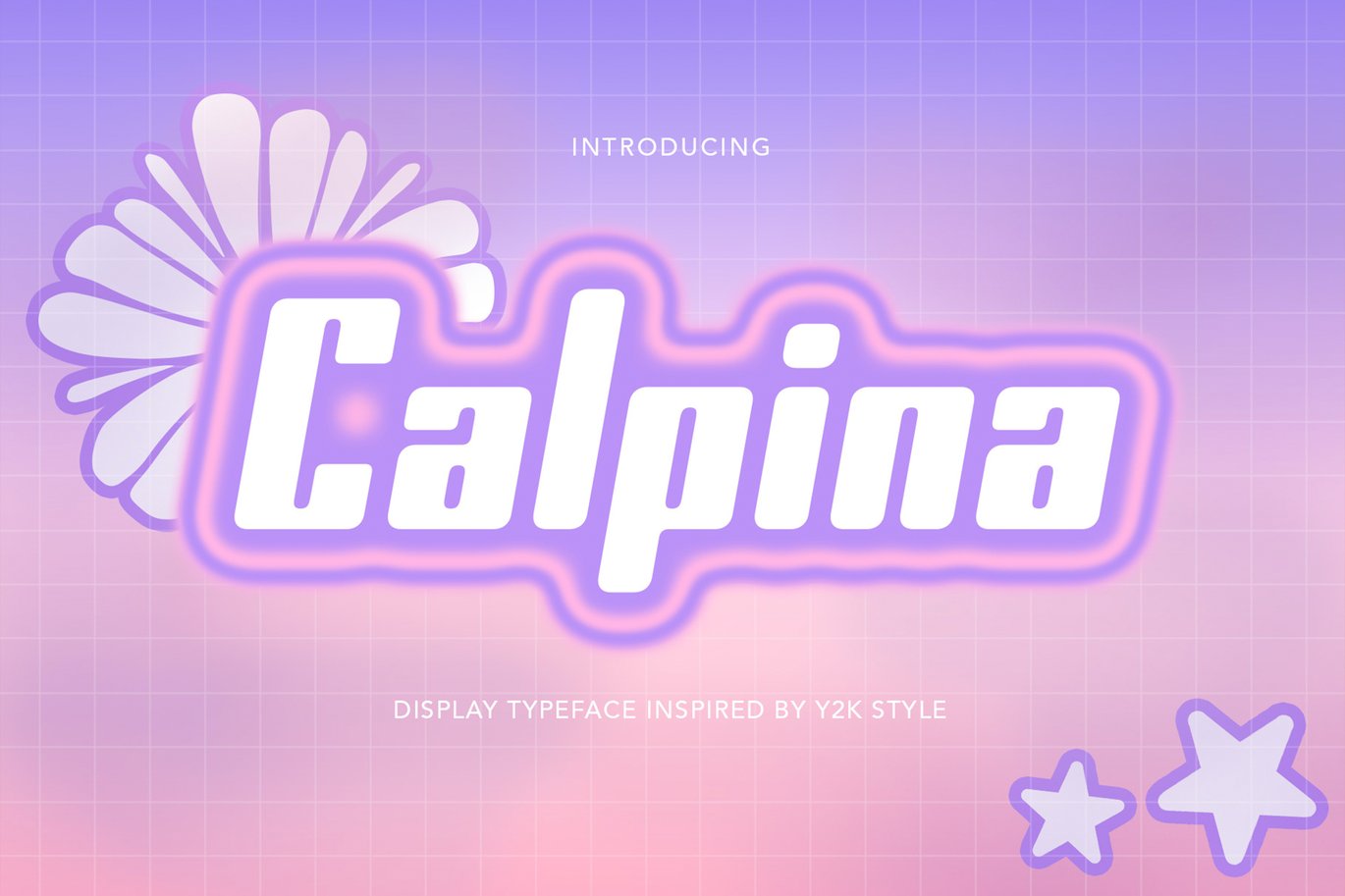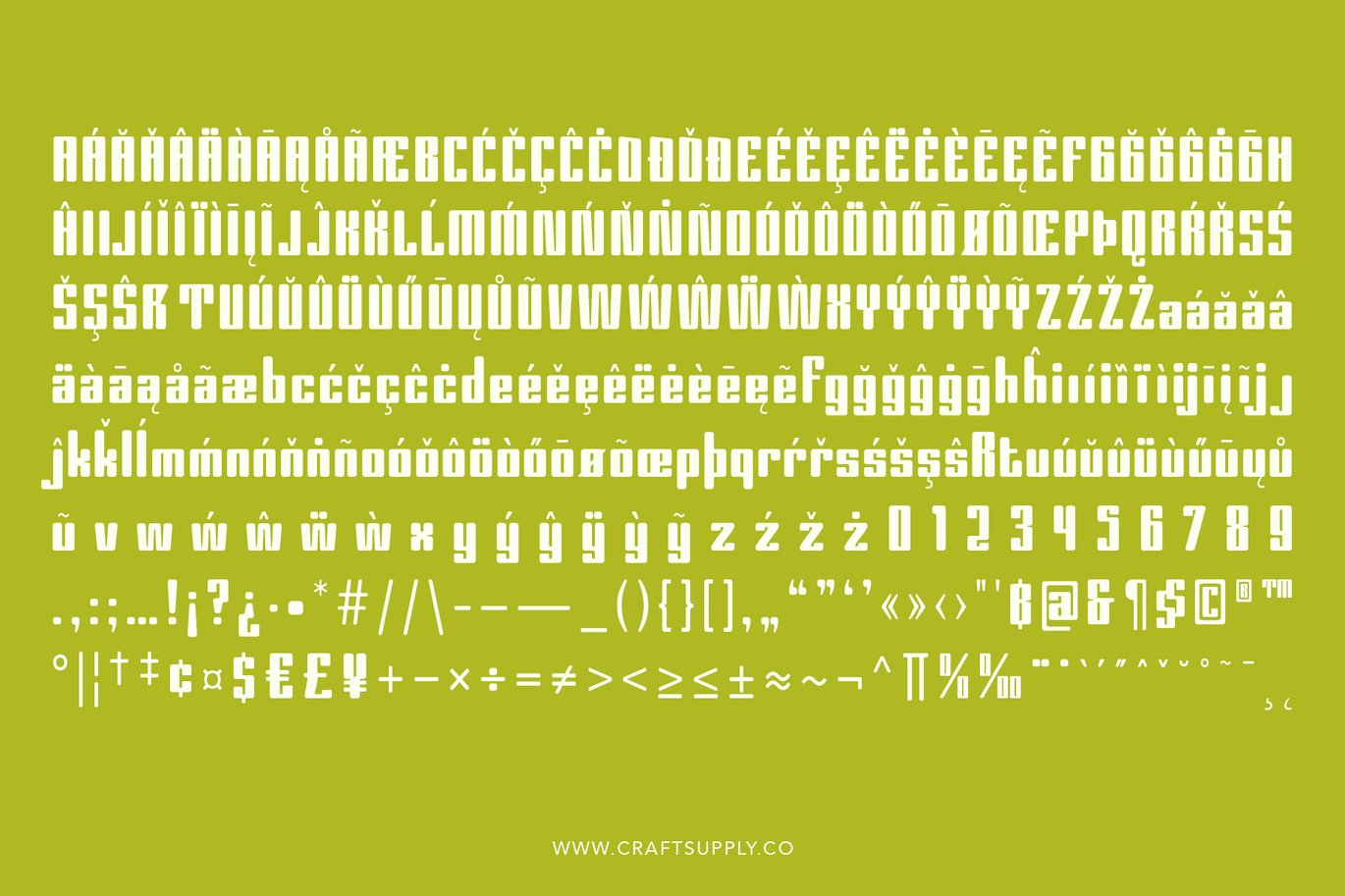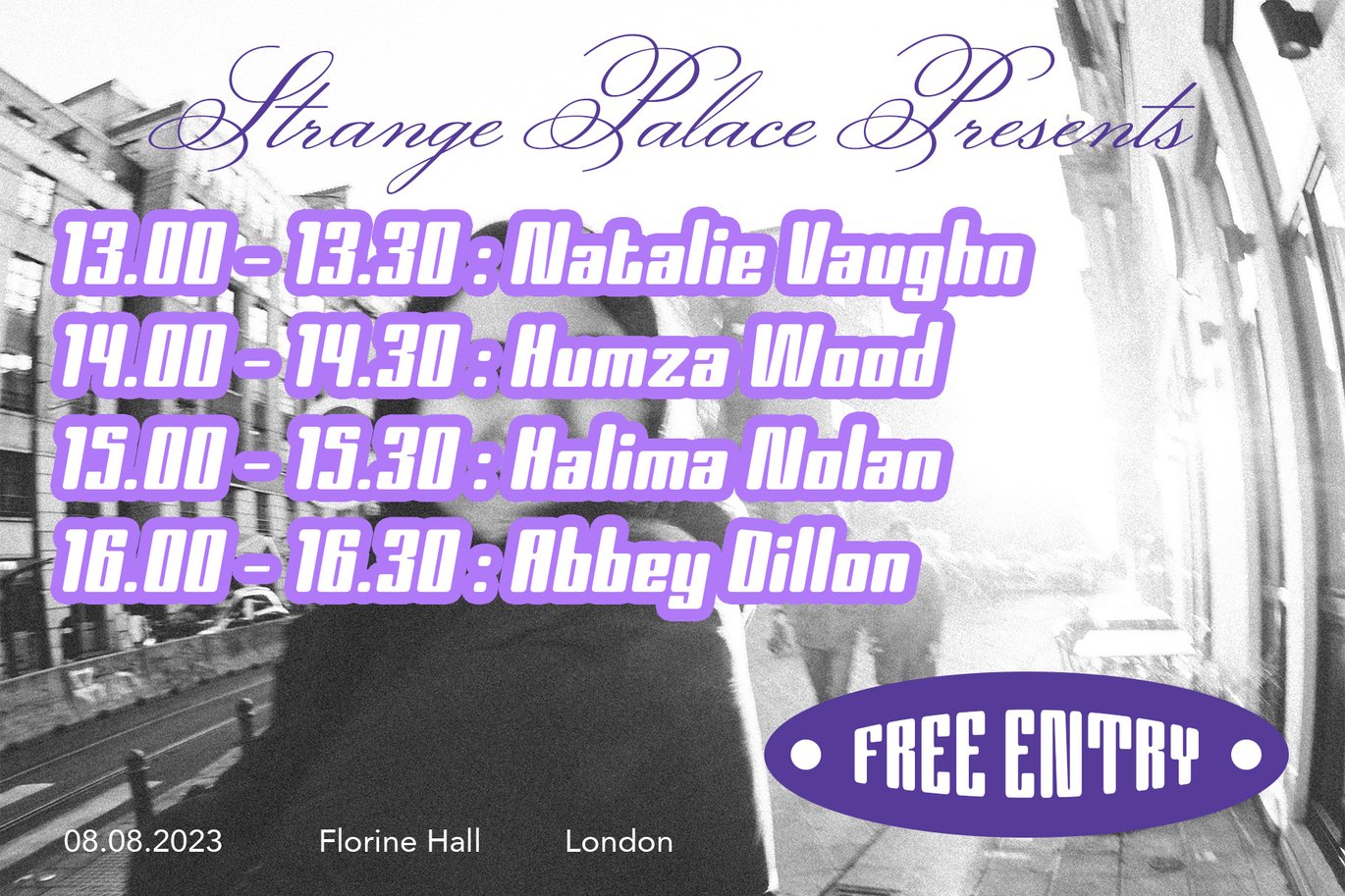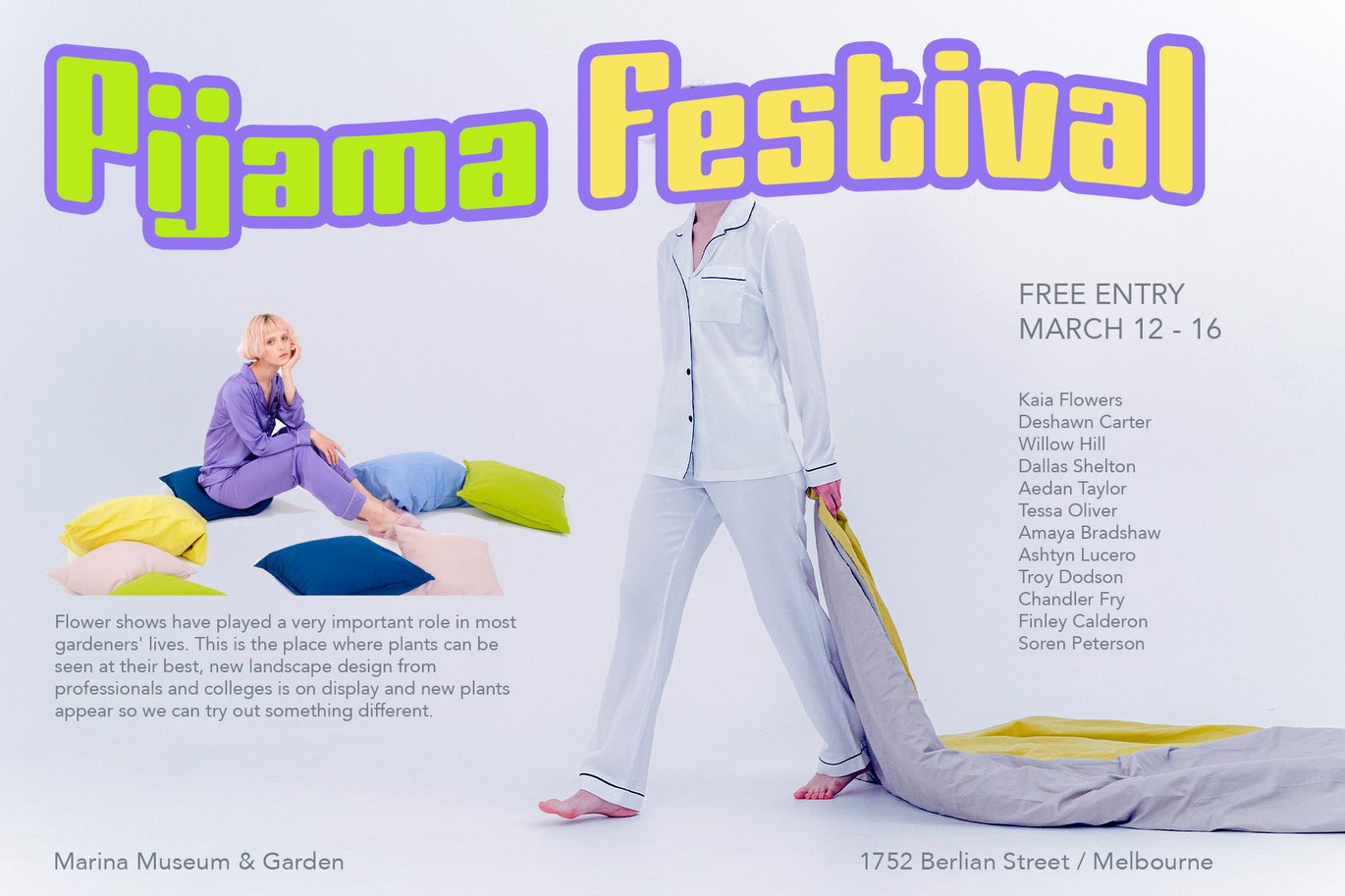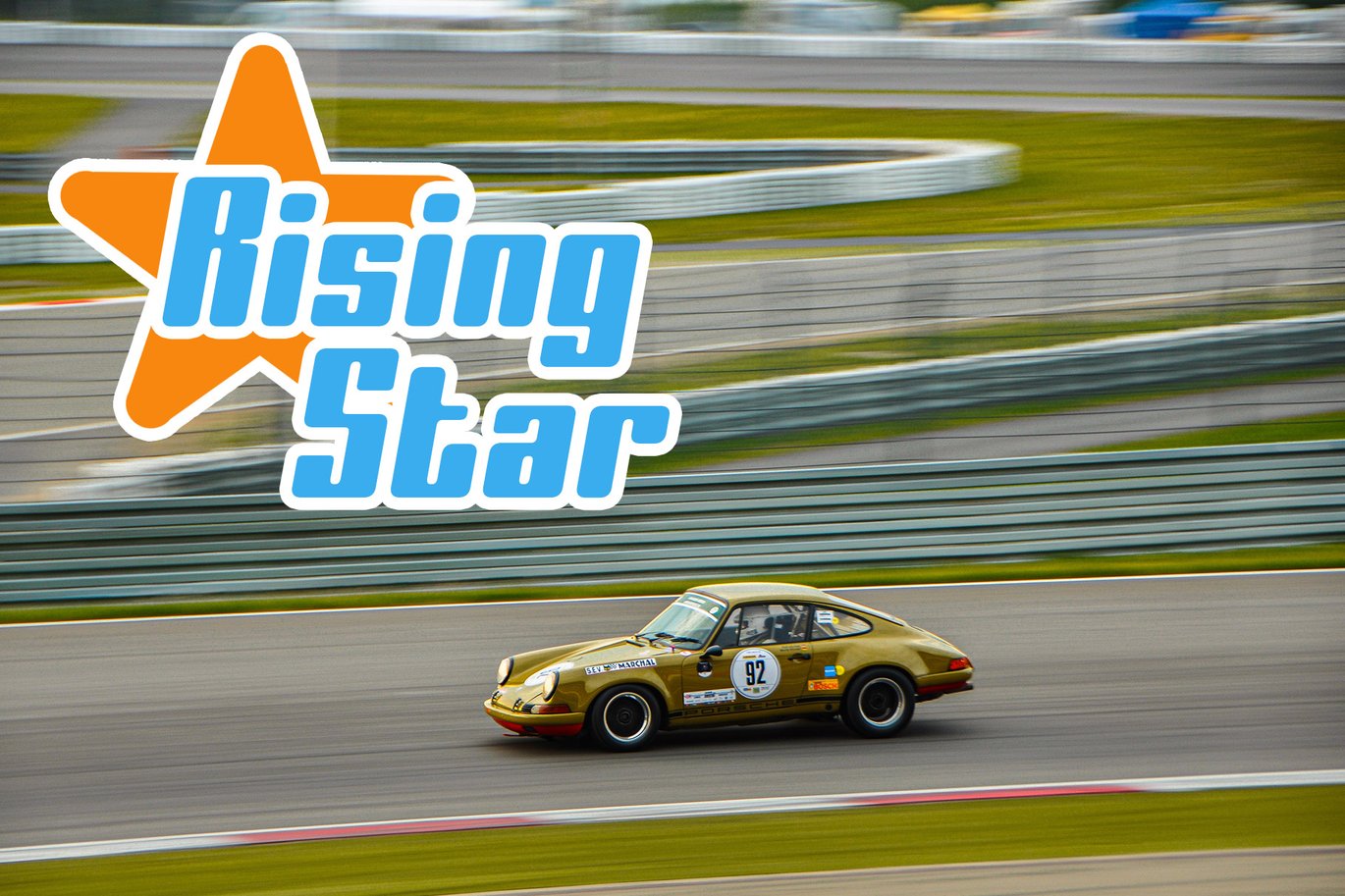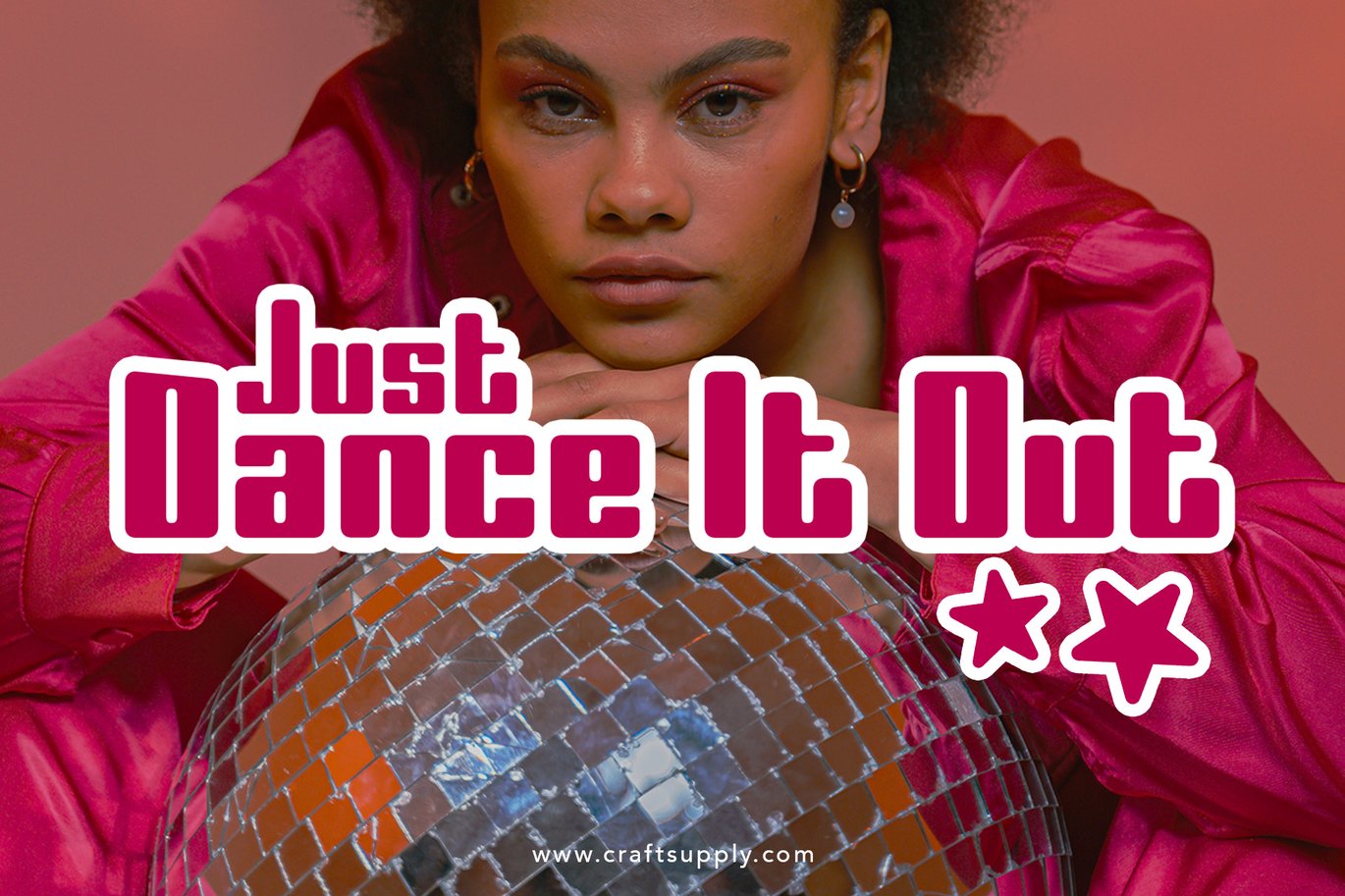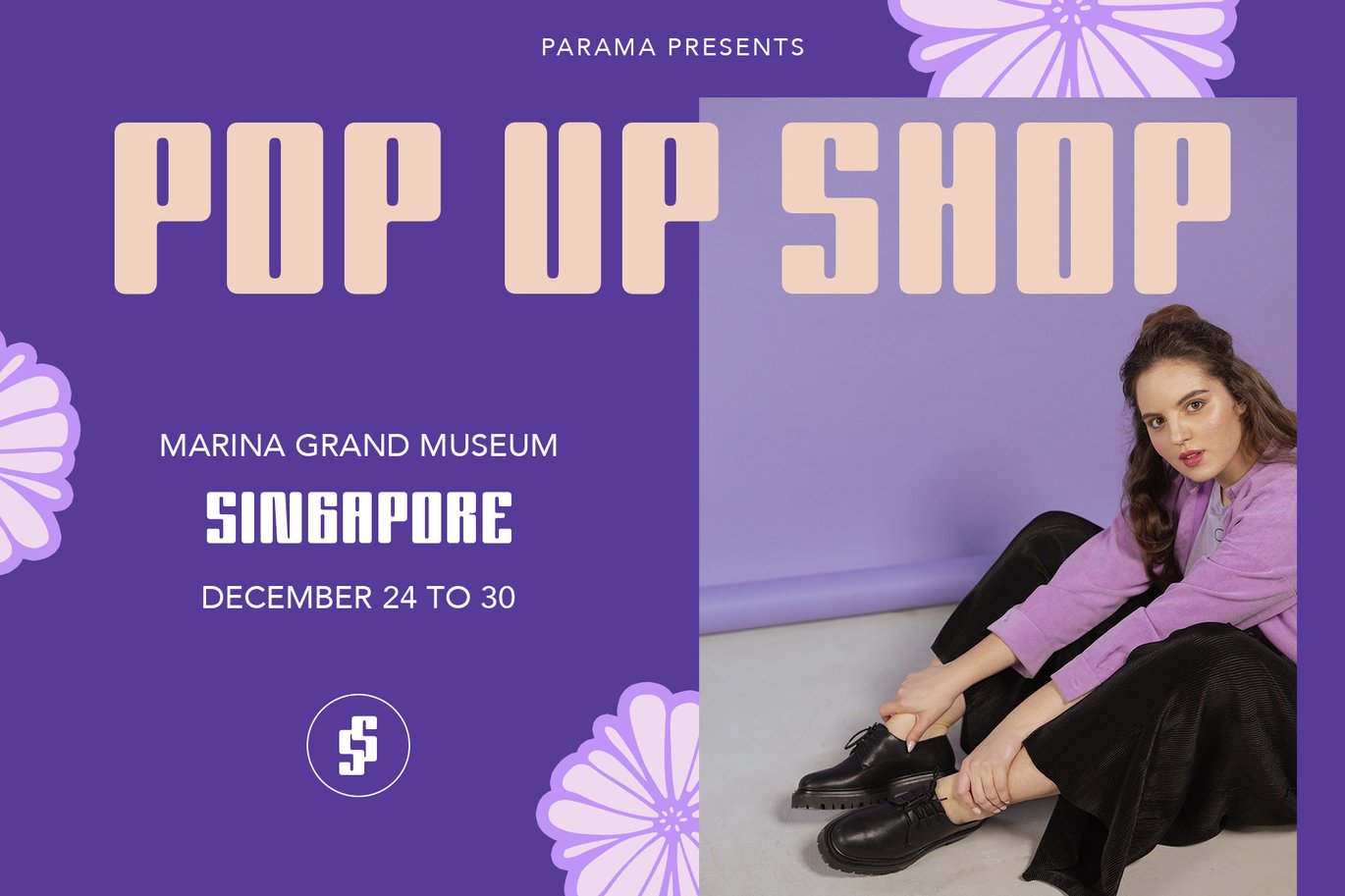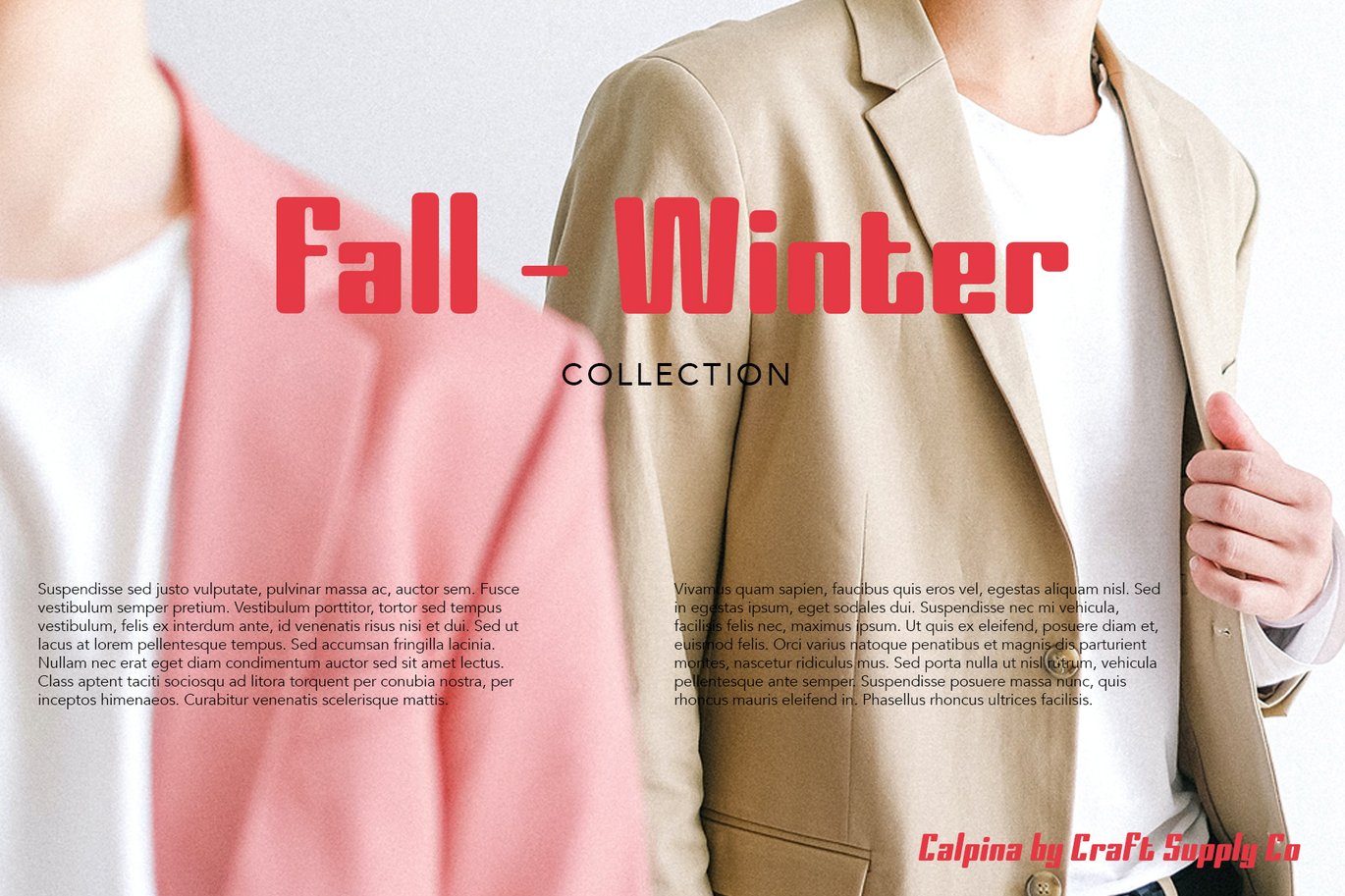
Calpina – Y2k Retro Font
Introducing Calpina, a bold sans serif typeface inspired by 90’s and early 2000’s nostalgia to express playful and fun.
You want to make a greeting card or a package design, or even a brand identity, craft design, any DIY project, book title, poster, pop vintage design, retro design or any purpose to make your art/design project look pretty and trendy? Feel free to play with this typeface!